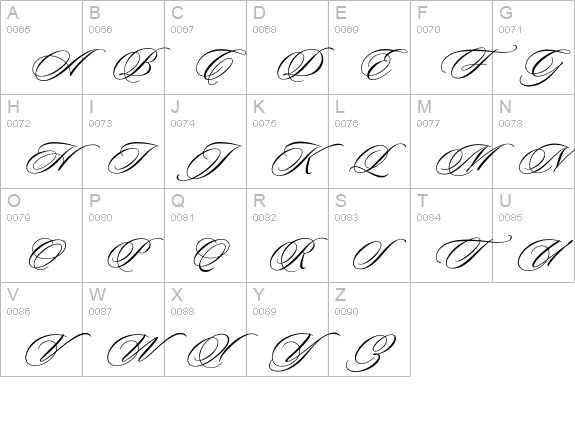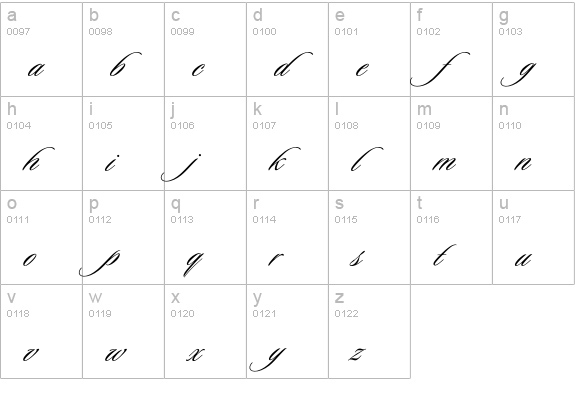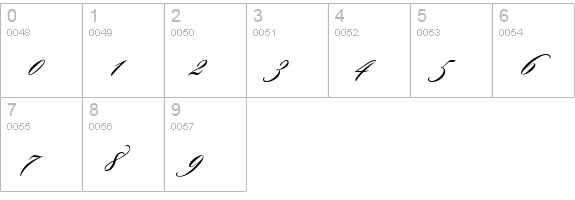
Sloop-ScriptTwo Font Details
Introducing Sloop-ScriptTwo, a stunningly elegant font that effortlessly blends the artistry of hand-drawn calligraphy with modern sophistication. This font exudes a timeless charm, making it perfect for a wide range of designs, from wedding invitations to branding projects. Sloop-ScriptTwo boasts graceful curves and delicate strokes that add a touch of refinement to any text. Its smooth lines and intricate details give it a sense of authenticity, as if each character has been meticulously crafted by a master calligrapher. The result is a font that is both visually striking and incredibly versatile. One of the most appealing features of Sloop-ScriptTwo is that it is available for free download at FontsMarket.com. This means that you can easily access this exceptional font and start incorporating its beauty into your designs without any hassle. Whether you are a professional designer or a DIY enthusiast, this font opens up a world of creative possibilities that are just waiting to be explored. With Sloop-ScriptTwo, you can effortlessly create elegant typography that leaves a lasting impression. Its timeless appeal and versatility make it suitable for a wide range of applications, including logos, packaging, invitations, and more. Its fluid and graceful letterforms lend themselves beautifully to both print and digital projects, ensuring that your designs stand out from the crowd. So why wait? Experience the beauty and freedom of Sloop-ScriptTwo today by downloading it for free at FontsMarket.com. Unleash your creativity and elevate your designs with this truly exceptional font.